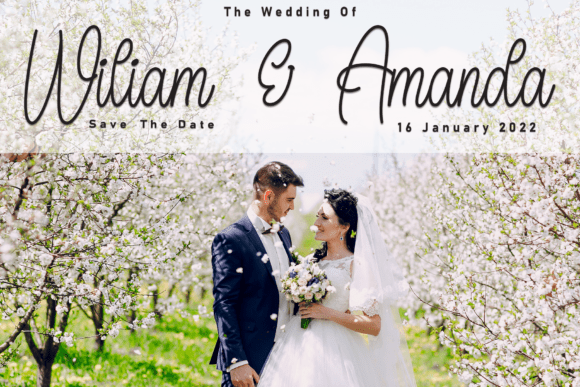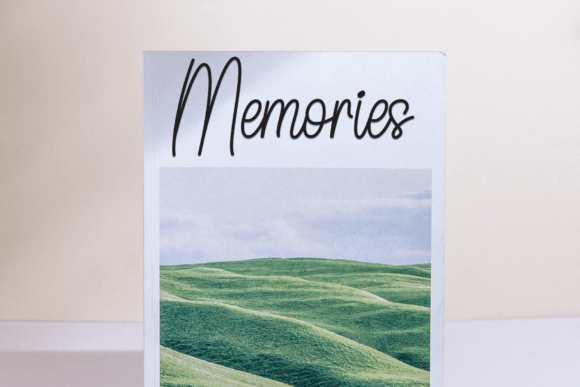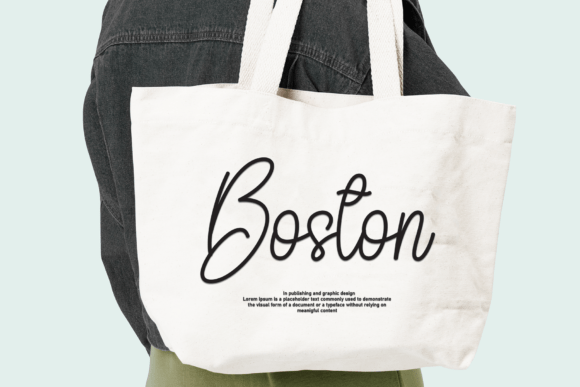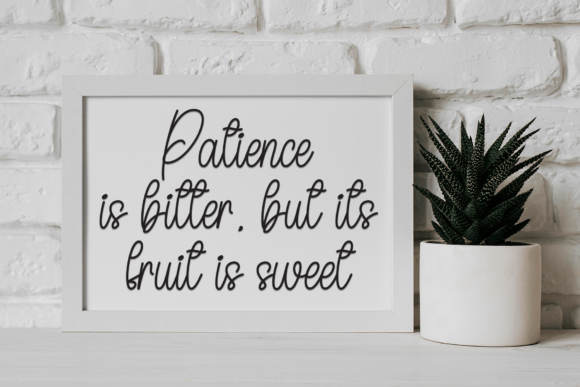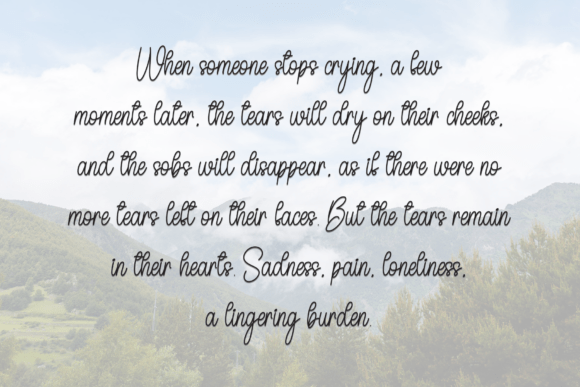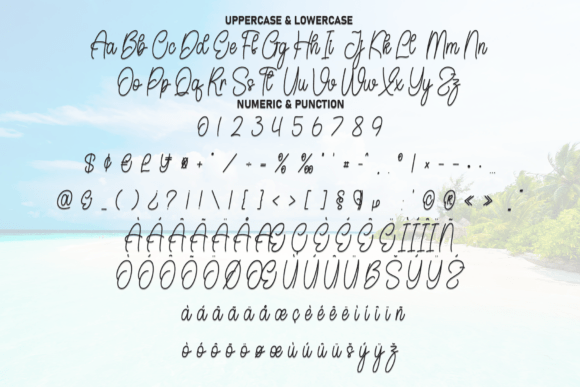
Introducing Beaching Font: The Ultimate Handwritten Display Font for Your Creative Projects
Are you tired of using the same old fonts for your designs? Look no further! Our captivating handwritten display font, Beaching Font, is here to revolutionize the way you create. With its irresistible charm and vivacity, this playful font is perfect for crafting designs that demand a pinch of exuberance. In this article, we’ll dive into the world of Beaching Font and explore its features, benefits, and uses.
The Allure of Beaching Font
Beaching Font is more than just a font – it’s an experience. Its enchanting allure is designed to captivate your audience and leave a lasting impression. With its unique blend of playfulness and sophistication, this font is perfect for designers and crafters who want to add a touch of personality to their work. Whether you’re creating wedding invitations, greeting cards, or social media graphics, Beaching Font is the perfect tool to help you stand out from the crowd.
Features of Beaching Font
So, what makes Beaching Font so special? Here are just a few of its key features:
- Handwritten display font: Beaching Font is a handwritten display font that exudes a sense of warmth and personality.
- Playful and exuberant: With its playful and exuberant style, Beaching Font is perfect for designs that demand a touch of whimsy.
- Custom stroke: Beaching Font comes with a custom stroke feature that allows you to tailor the font to your design ethos.
- Hypnotic and cheerful: This font is designed to captivate your audience and leave a lasting impression.
Uses of Beaching Font
Beaching Font is a versatile font that can be used for a wide range of design projects. Here are just a few ideas to get you started:
- Wedding invitations: Create beautiful and unique wedding invitations that will set the tone for the big day.
- Greeting cards: Add a touch of personality to your greeting cards with Beaching Font.
- Social media graphics: Use Beaching Font to create eye-catching social media graphics that will help you stand out from the crowd.
- Branding and packaging: Use Beaching Font to add a touch of personality to your branding and packaging.
Benefits of Using Beaching Font
So, why should you choose Beaching Font for your design projects? Here are just a few benefits:
- Unique and eye-catching: Beaching Font is a unique and eye-catching font that will help you stand out from the crowd.
- Easy to use: Beaching Font is easy to use and comes with a simple and intuitive design.
- Customizable: With its custom stroke feature, Beaching Font can be tailored to your design ethos.
- High-quality: Beaching Font is a high-quality font that is designed to deliver exceptional results.
Tips for Using Beaching Font
Here are a few tips for using Beaching Font in your design projects:
- Experiment with different colors: Beaching Font looks great in a variety of colors, so don’t be afraid to experiment.
- Use it sparingly: Beaching Font is a bold font, so use it sparingly to avoid overwhelming your design.
- Pair it with other fonts: Beaching Font pairs well with other fonts, so don’t be afraid to experiment with different combinations.
In conclusion, Beaching Font is a captivating handwritten display font that is perfect for designers and crafters who want to add a touch of personality to their work. With its unique blend of playfulness and sophistication, this font is sure to captivate your audience and leave a lasting impression. Whether you’re creating wedding invitations, greeting cards, or social media graphics, Beaching Font is the perfect tool to help you stand out from the crowd.